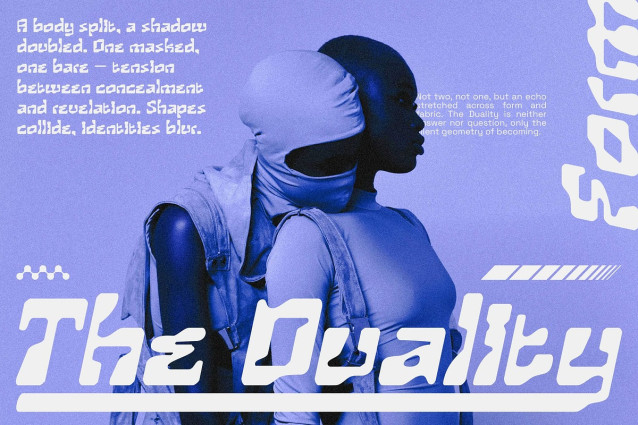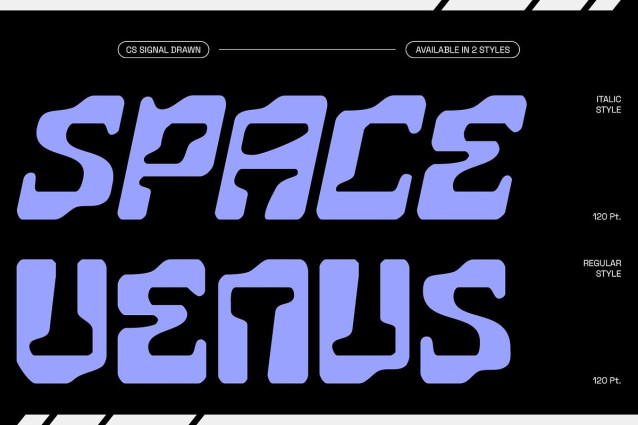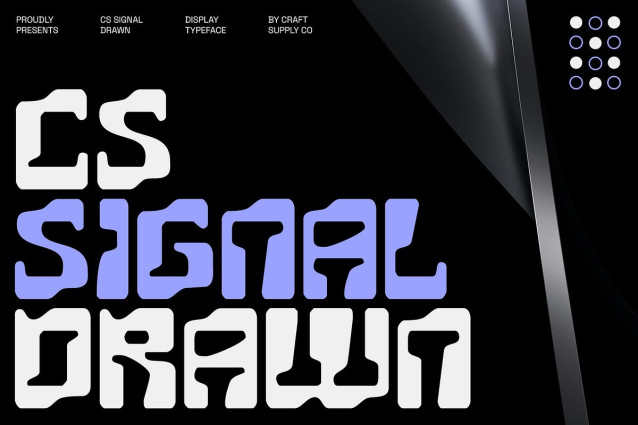
CS Signal Drawn Font
CS Signal Drawn Font – This is a cyberpunk-inspired display font that thrives on sharp angular lines and neon-like styling. Its geometric precision channels the bold spirit of sci-fi aesthetics, making it ideal for projects that demand a cutting-edge, high-tech look.
Unique Hand-Drawn Effect Unlike conventional digital typefaces, fonts integrates a hand-drawn effect that gives it depth and individuality. This handmade layer disrupts the sterile feel of cyberpunk precision, resulting in a font that feels both futuristic and artistically rebellious.
Energy, Edge, and Rebellion The combination of sharp angles and drawn texture radiates raw energy, offering a sense of defiance and innovation. It captures the essence of cyberpunk culture blending dystopian grit with neon vibrancy making it stand out in bold design contexts.
Perfect for Gaming and Digital Visuals The font is built for impactful usage across gaming visuals, futuristic posters, and digital projects. Its edgy personality ensures strong readability while enhancing the mood of immersive, tech-driven designs. Whether used in branding, UI graphics, or promotional art, it guarantees a distinctive visual punch.